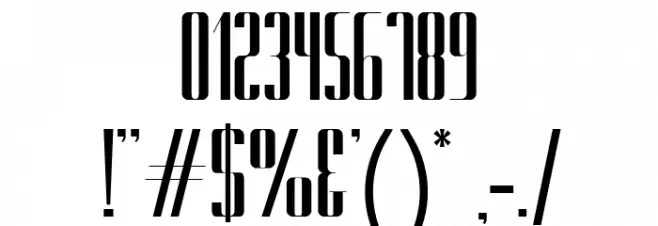
Gorgeous SuperBlack Font
Gorgeous SuperBlack Description
This font is a striking and bold typeface characterized by its tall, narrow letterforms and high contrast between thick and thin strokes. The uppercase letters are particularly elongated, giving a dramatic and modern appearance. The lowercase letters maintain a consistent style, with a sleek and sophisticated look. The numerals are equally bold, ensuring they stand out in any design. Special characters are designed with the same attention to detail, making them perfect for a variety of uses. The overall aesthetic is both elegant and assertive, making it suitable for impactful headlines and branding projects.
A bold, high-contrast typeface with elongated, narrow letterforms from Sans Serif fonts.
- Proposed Projects: Ideal for branding, advertising, and editorial design where a strong visual impact is needed.
- Character Spacing: Tight